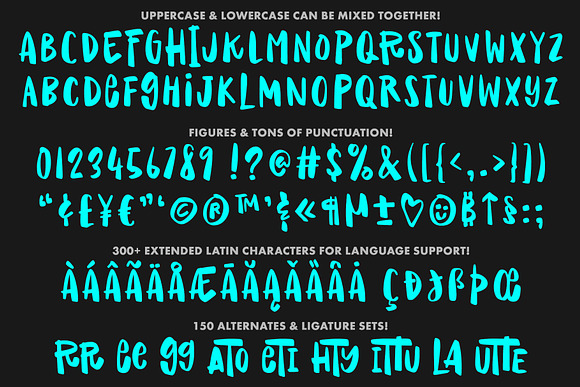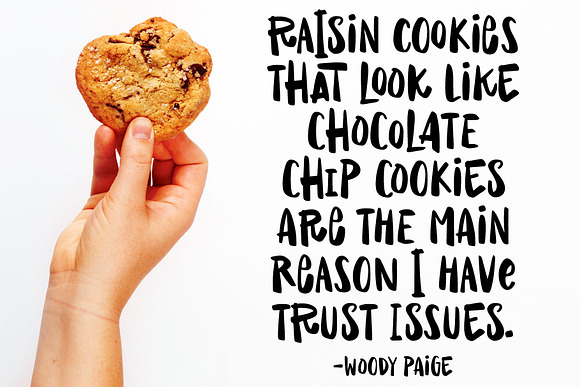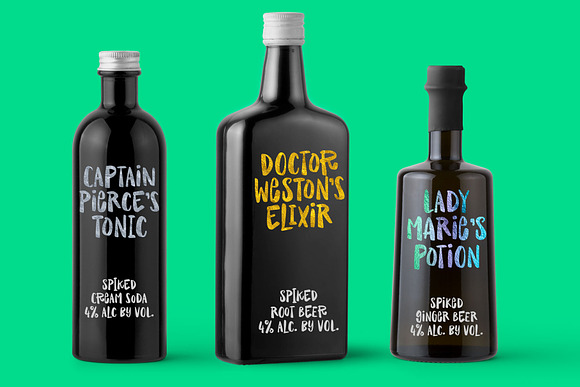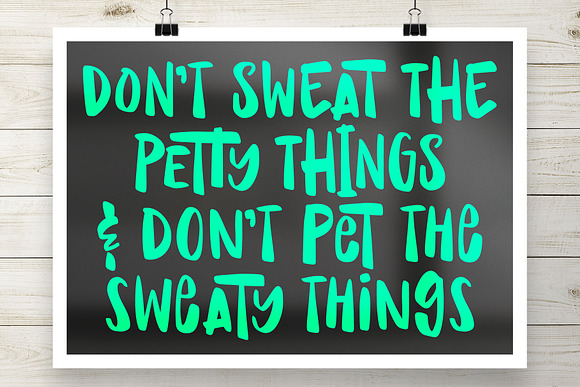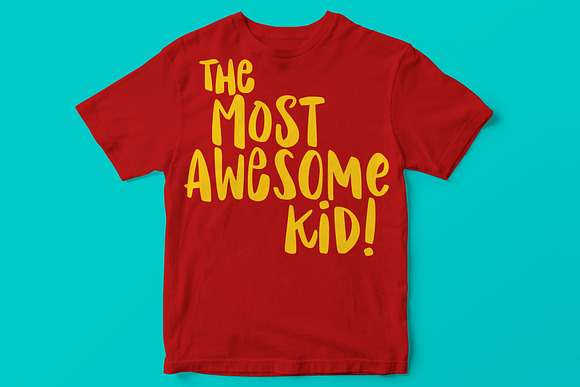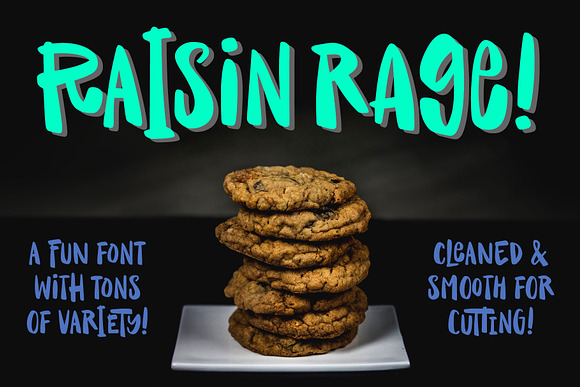
Raisin Rage: a fun & casual font!
It's a weird name, but it's a weird font! Introducing RAISIN RAGE, a font that expresses that feeling of when you bite into a cookie expecting it to be full of chocolate chips, but it's full of squishy, rubbery raisins instead. (Don't write to me, raisin lovers - you'll never change my mind.) Raisin Rage has some fun casual elements like varying stroke widths plus some bouncing heights which make this fun to use for branding, packaging, logos, and more; I've cleaned the letters up extensively, so the font is great for cutting and crafting as well! Your Raisin Rage download includes: Two mostly-uppercase alphabets, plus the usual numbers, and a full standard set of punctuation Smoothed and cleaned outlines for easy cutting Over 300 extended Latin characters for language support Over 150 alternates, ligatures, and extras for variety